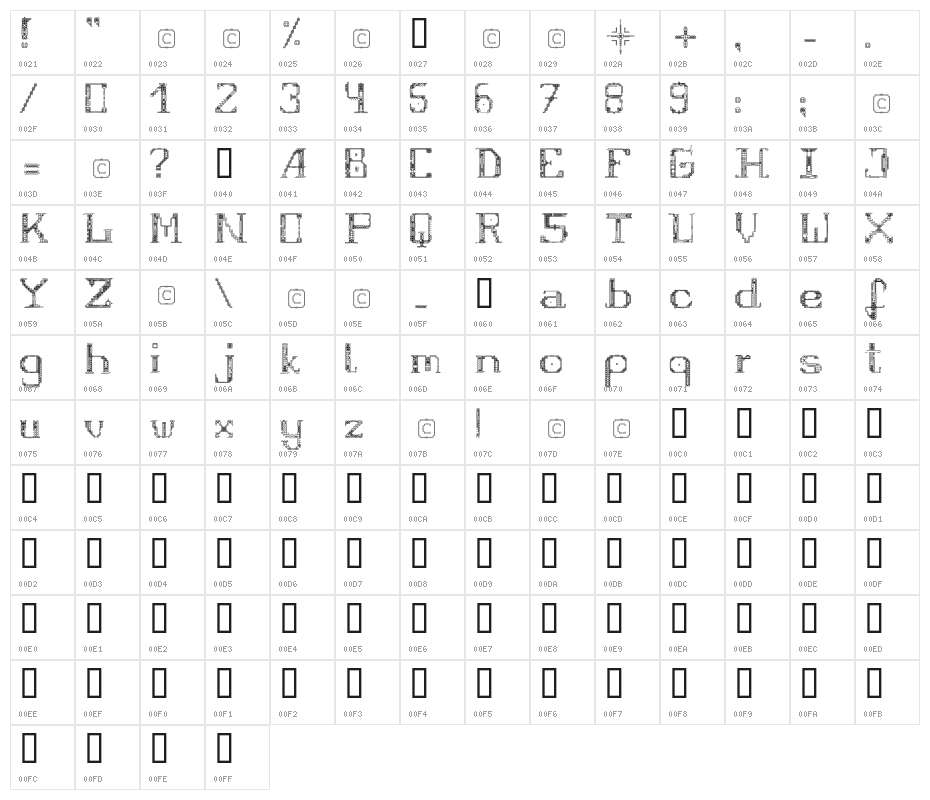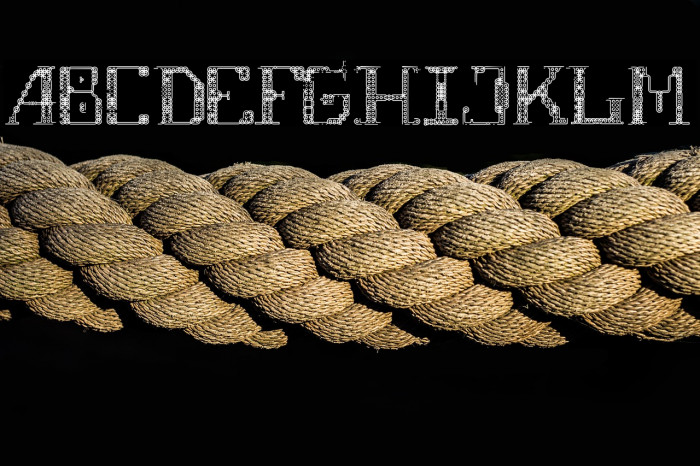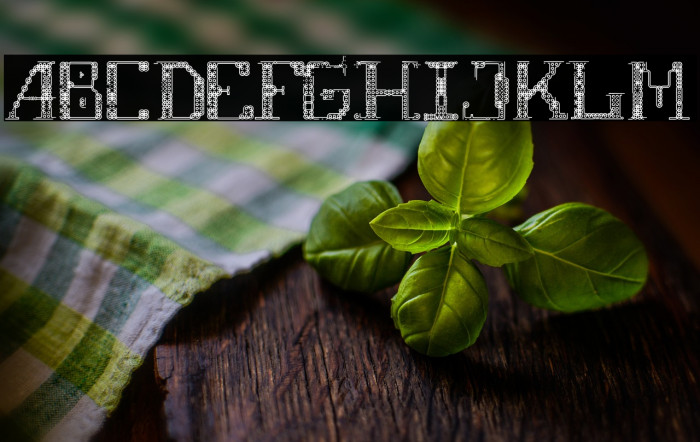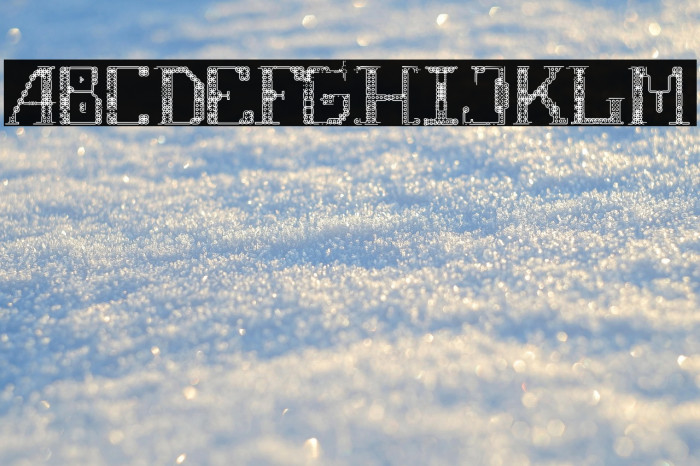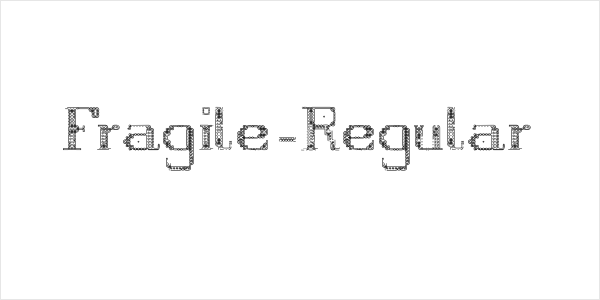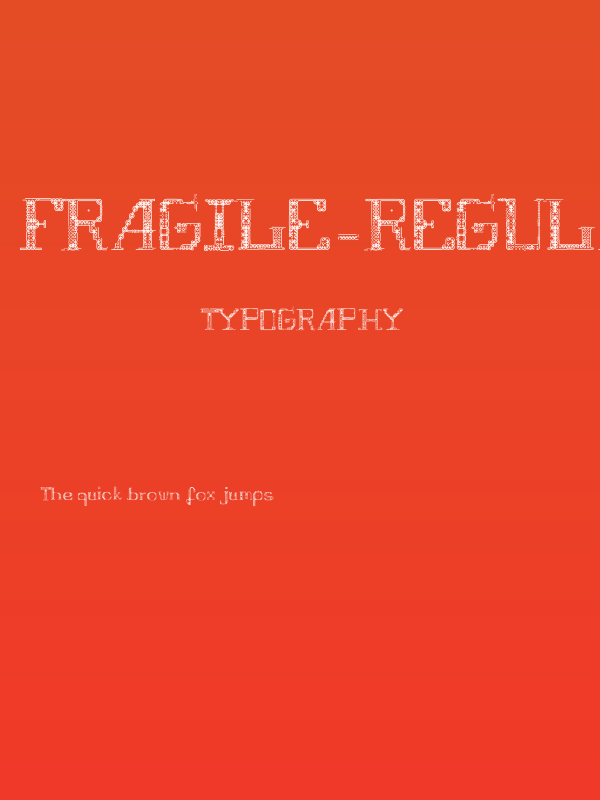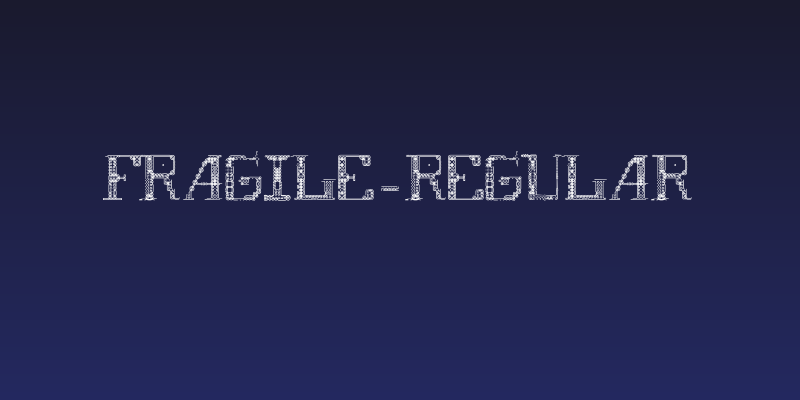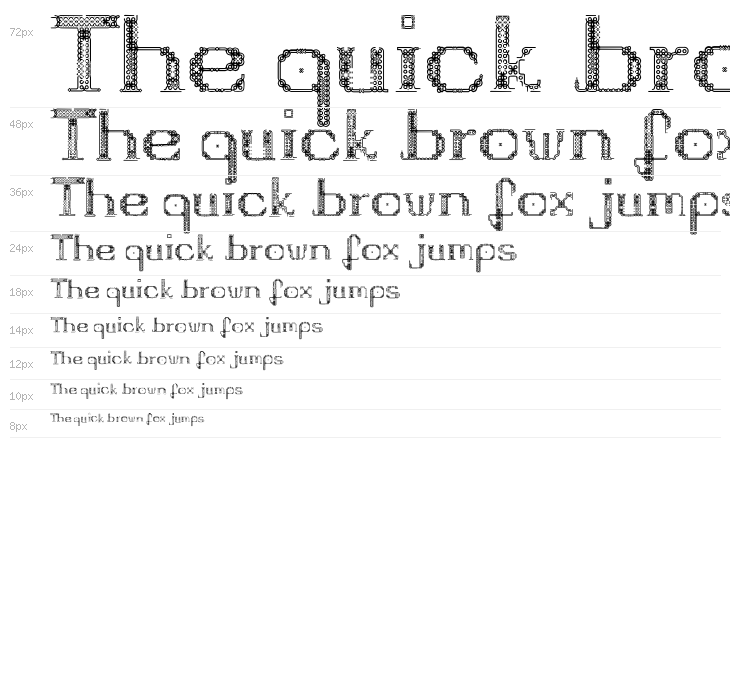
Fragile-Regular Font
Fragile-Regular Description
This font features a unique and intricate design with a decorative, almost mechanical appearance. Each character is composed of a series of connected circles and lines, creating a textured and detailed look. The uppercase and lowercase letters maintain a consistent style, with the uppercase being slightly more pronounced. The numbers and special characters follow the same design principles, ensuring uniformity across the font. This font stands out due to its artistic and unconventional style, making it suitable for creative and eye-catching projects.
| Proposed Projects | Ideal for artistic projects, posters, unique branding, and creative digital artwork. |